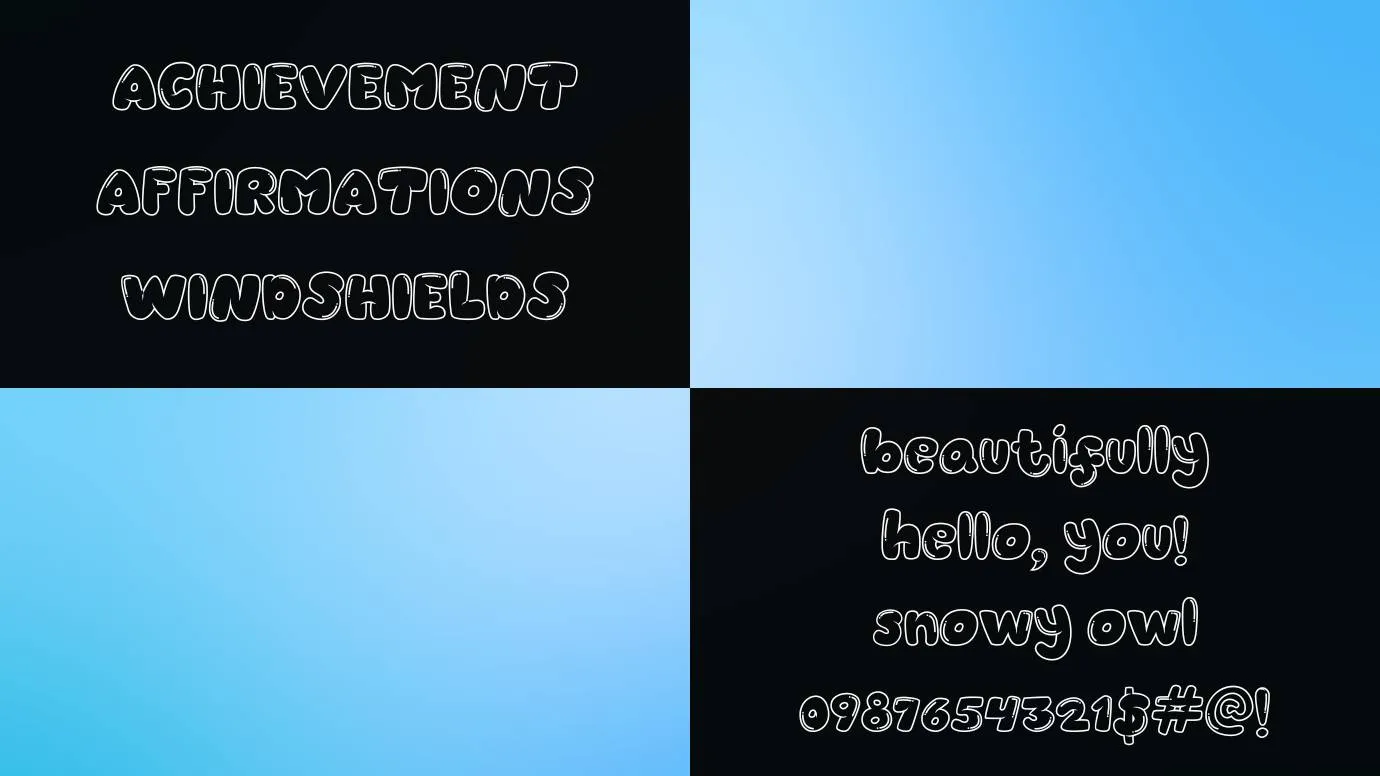
This is a new cartoon texture named Balonku Font. It is a friendly and playful cartoon style that will suit your designs. It portrays different colors and shapes of balloons. This font has both file formats OTF and TTF.
This typeface is fun and joyful hence a masterpiece for creating designs with a cartoonish feeling. This typeface can be paired with plastic love which is perfect for creating posters, magazine covers, banners, logos, birthday parties, and kids-themed design designs.
The typeface has a complete set of characters including uppercase and lowercase letters, numbers, and punctuation marks. It is quite similar to invader zim font as this texture is versatile and works well with both text and graphics. This font is great choice for creating attention-grabbing headlines. It is a perfect typeface to carry out your fun designs.
The designer of the cartoon typeface is Azka Rizki [Vable Studio]. The typeface has been created with the intent of playfulness.
The exquisite typeface comes in a single regular style. The typeface has a complete set of characters including uppercase and lowercase letters, numbers, and punctuation marks along with support for international languages.
What is the Balonku typeface?
This is a cartoonish typeface. It is a friendly and playful cartoon font that will suit your designs that need a cartoonish touch to it.
Who designed the Balonku typeface?
The masterpiece typeface has been designed by Indonesian designer Azka Rizki [Vable Studio]. The typeface has been created with the intent of playfulness.
Is the Balonku typeface good for body texts?
Yes. You can use it for body texts. It portrays different colors, and shapes of balloons, and soap bubbles.